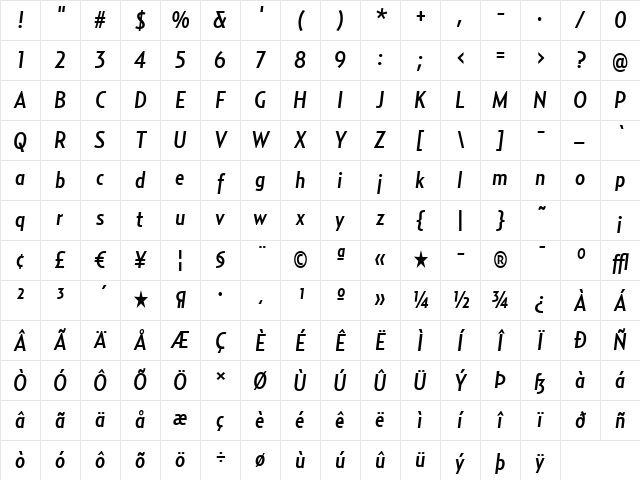
RelayCond-MediumItalic Regular
Designer: Cyrus Highsmith
Design Context for RelayCond-MediumItalic
RelayCond-MediumItalic is a composed and adaptable typeface that performs quietly and consistently across a wide range of design contexts. The slanted form adds forward momentum and visual energy. Its narrow stance lets it pack a punch even in space-constrained designs.